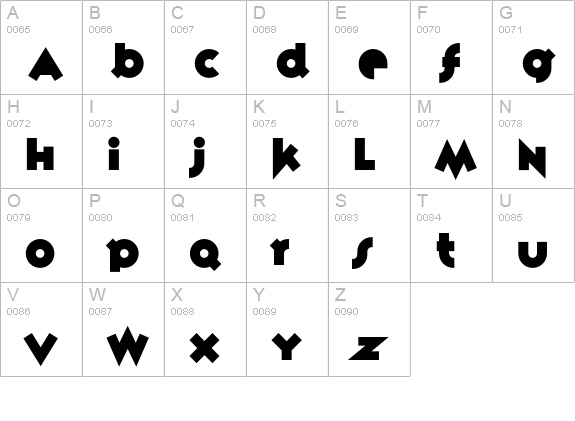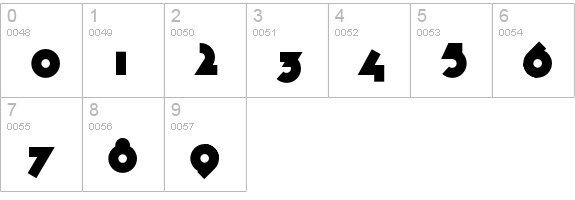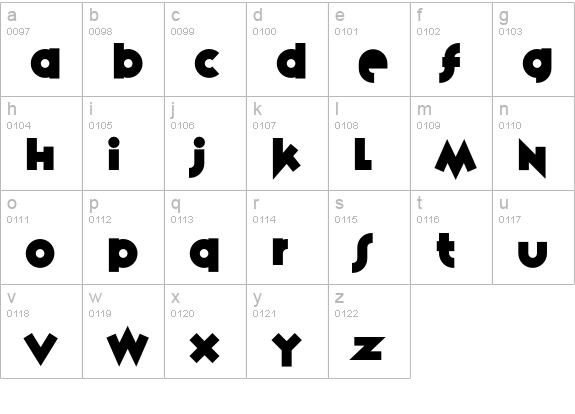
VariexBoldA is a stunning and versatile font that is sure to make a bold statement in any design project. With its strong and commanding presence, this font exudes confidence and professionalism. The thick and bold letterforms add a touch of elegance and sophistication to any text, making it perfect for headlines, logos, branding, and more. What makes VariexBoldA even more appealing is that it is available for free download at FontsMarket.com. This means that you can easily access this extraordinary font without any cost or hassle. Whether you are a professional designer looking to add a touch of uniqueness to your work or a casual user in need of a stylish font for personal projects, VariexBoldA is the perfect choice. With its wide range of characters and impeccable design, VariexBoldA offers endless possibilities for creativity. The meticulously crafted letterforms ensure legibility and readability, even at small sizes, making it suitable for both print and digital applications. Whether you're designing a sleek and modern website, creating eye-catching posters, or crafting captivating social media graphics, VariexBoldA is the ideal font to help you stand out from the crowd. Its bold and impactful design will capture attention and leave a lasting impression on your audience. Don't miss out on this incredible opportunity to enhance your designs with VariexBoldA. Visit FontsMarket.com today and download this font for free. Elevate your projects with the power and beauty of VariexBoldA and let your creativity shine.